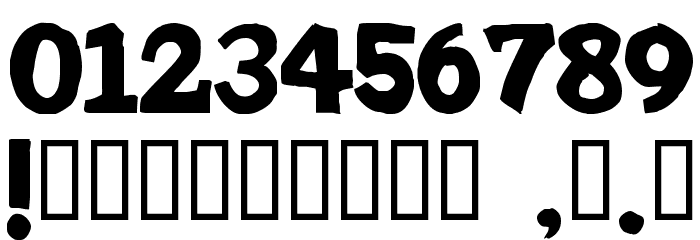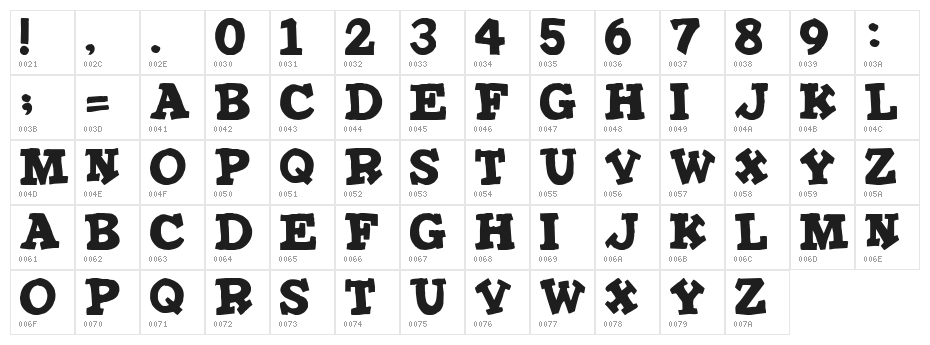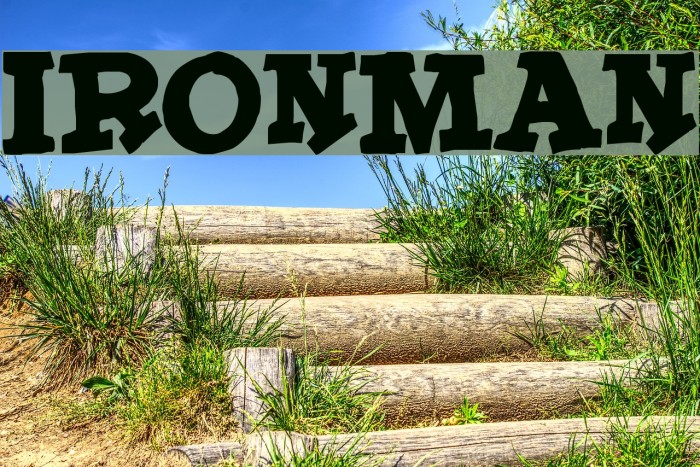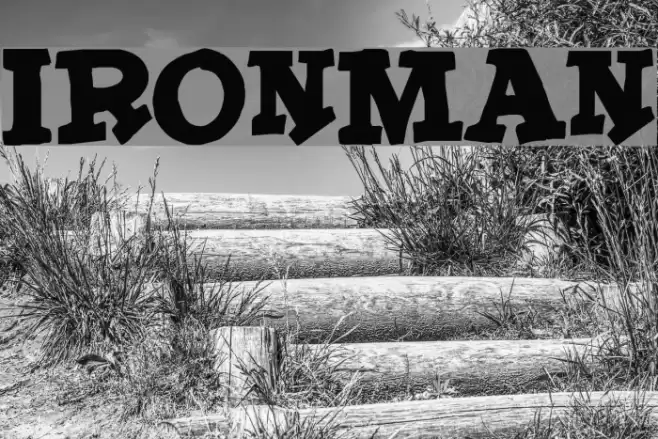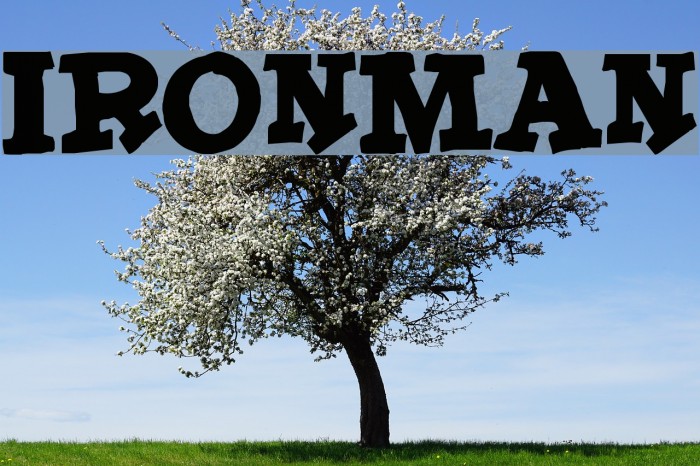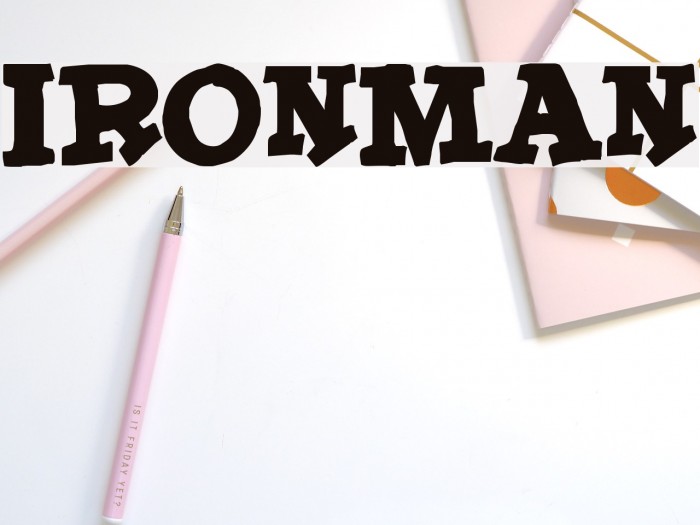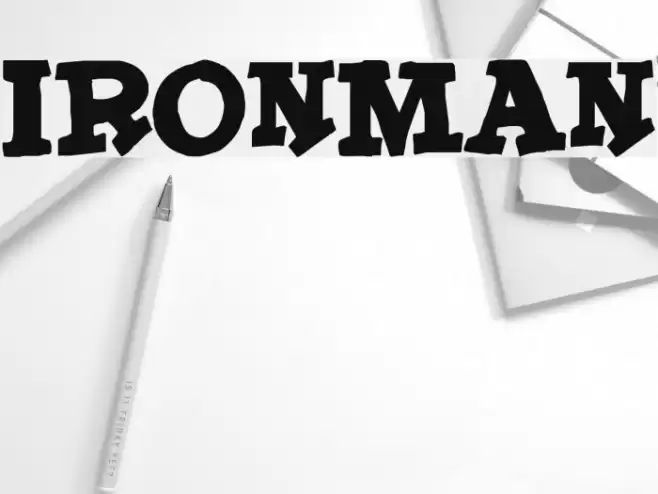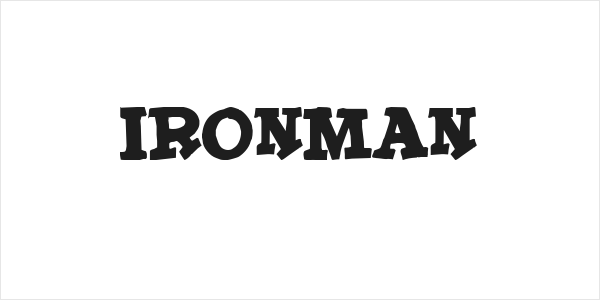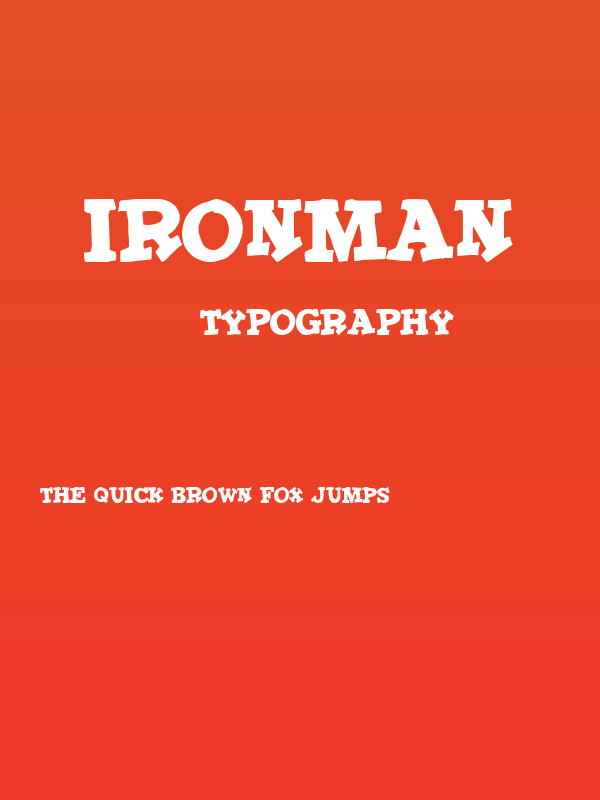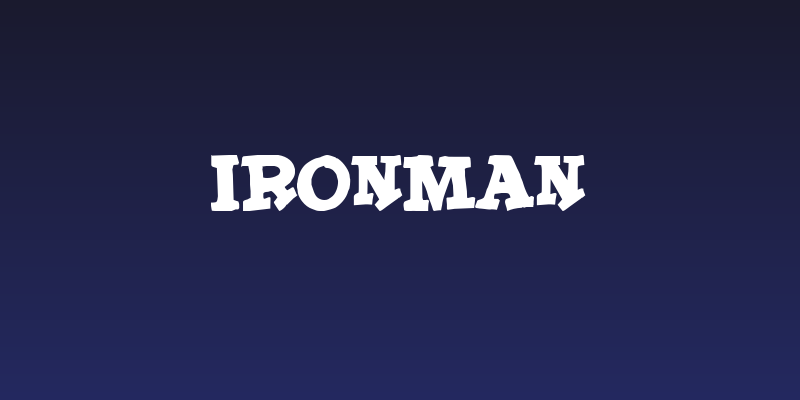
IronMan Font
IronMan Description
This font features a bold and playful style with a strong presence. The characters are designed with a slight slant and exaggerated serifs, giving them a dynamic and energetic appearance. The boldness of the letters makes them stand out, while the playful curves and unique shapes add a touch of whimsy. The numbers and special characters maintain the same bold and playful aesthetic, ensuring consistency across all elements. This font is perfect for projects that require a fun and eye-catching design.
| Overall Style | Playful, Energetic |
| Proposed Projects | Ideal for children's books, comic titles, playful branding, and eye-catching posters. |